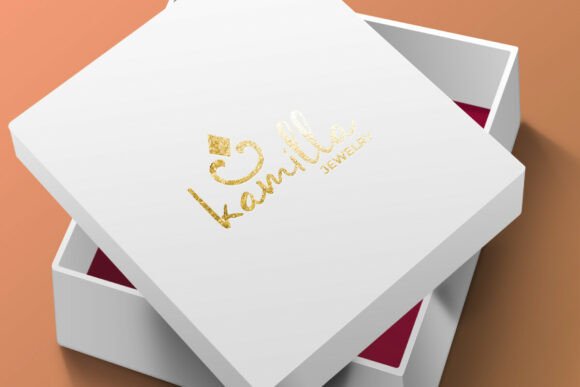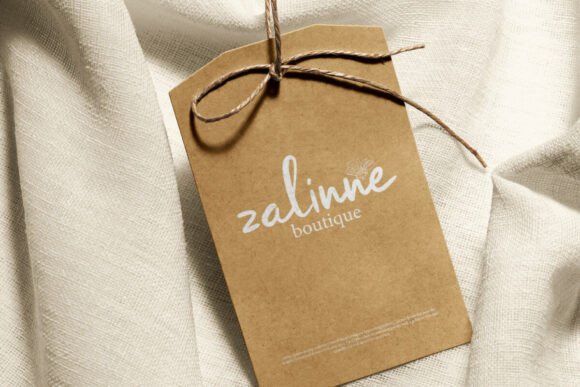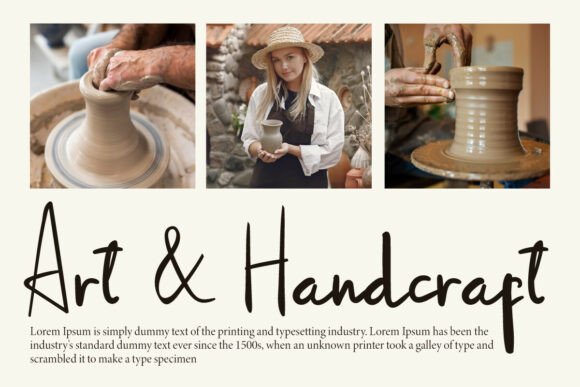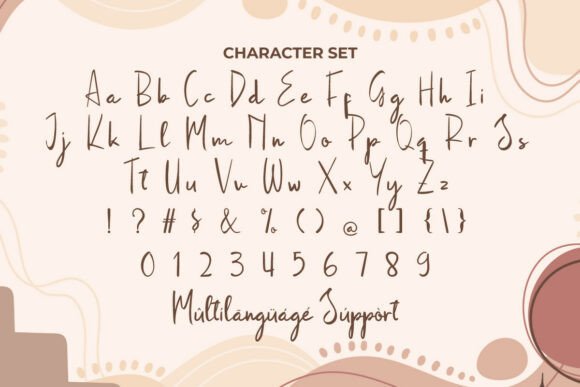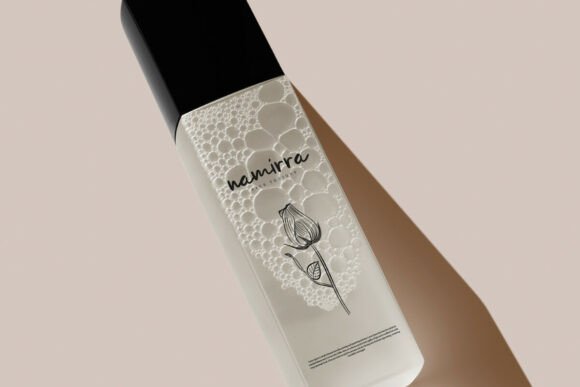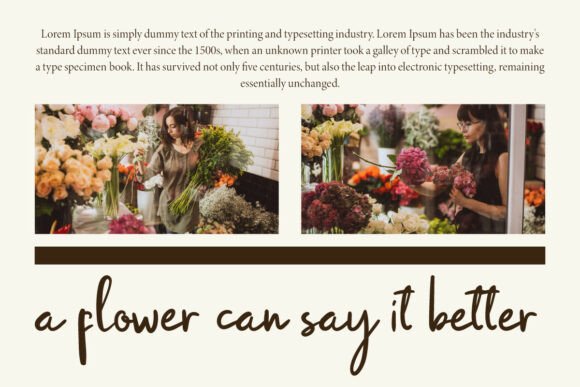
Introduction to Saphina Journie Font
Have you ever stumbled upon a handwritten note from a loved one, and it instantly brightened up your day? The imperfections, the personal touch, and the genuine feel of it all come together to create a unique experience. That’s exactly what the Saphina Journie Font brings to your creative projects – a lively, organic feel that’s as natural as a handwritten note.
As a designer, you’re always on the lookout for the perfect design resource to elevate your work. The Saphina Journie Font is a high-quality, free download that’s perfect for any creative project. With its transparent background and wide range of uses, from accessories and merchandise to graphic design and publishing, this font is a valuable addition to your design arsenal.
- The Saphina Journie Font is a high-quality design resource ideal for creative projects, offering a unique and elegant style.
- This font features a transparent background, allowing for easy integration into various design elements and backgrounds.
- The Saphina Journie Font is a great addition to any design resource library, offering a unique and stylish element to enhance creative projects.
Honest Review: Saphina Journie Font
I recently came across the Saphina Journie Font, and I must say it’s a great addition to any designer’s arsenal. The font is perfect for creative projects that require a touch of elegance and sophistication. With its high quality design, the Saphina Journie Font is sure to elevate your work to the next level.
- ✨ Beautifully crafted with intricate details, making it perfect for titles and headings.
- ✨ Offers a transparent background, giving designers the flexibility to use it on any background.
- ⚠️ The font may not be suitable for body text, as it can be quite ornate and distracting.
- ⚠️ Some characters may not be available in all languages, which could be a limitation for designers working on international projects.
Overall, I’m impressed with the Saphina Journie Font. It’s a high-quality design resource that’s perfect for creative projects that require a touch of sophistication. With its beautiful design and flexible usage, I’d highly recommend it to any designer looking to add some elegance to their work.
The Saphina Journie Font is suitable for a variety of creative projects, including blog posts, social media graphics, and presentations. Its elegant and sophisticated design makes it an excellent choice for formal or professional designs.